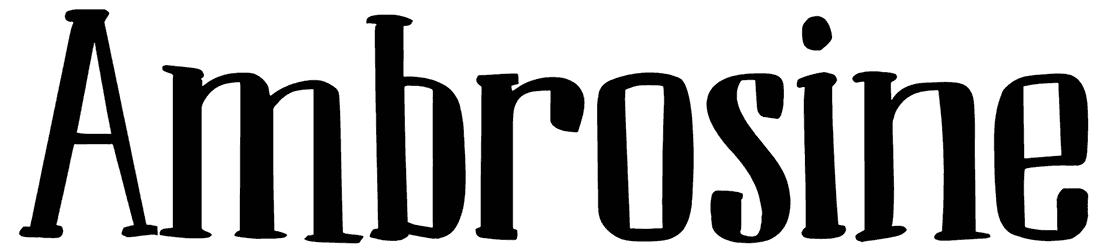
DK Ambrosine Font
The DK Ambrosine font, with its brilliant graphical design, tells you a story and grabs your audience’s mind. This retro font shapes the letters in a manner that sticks to the eyes and makes the written word memorable.
The characters are linear and thin, yet, on the other hand, sharp and bony. The letters next to each other, creating a comment in DK Ambrosine font, send the feeling of joy and keep your audience looking at your content.